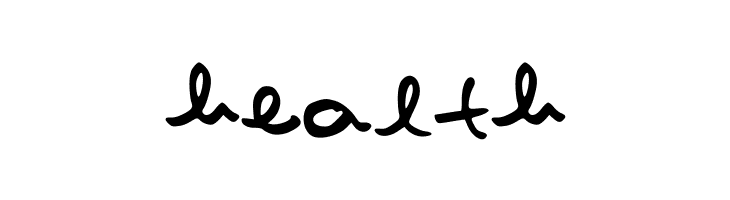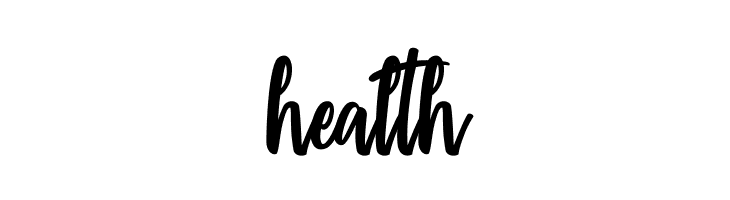
( Daniel Petrino - dpetrino.com/ )
A pixelated, retro-style font inspired by early digital graphics.
A modern, elegant script font with flowing, cursive characters.
( Vladimir Nikolic - www.coroflot.com/vladimirnikolic )
A bold, 3D decorative font with a gradient effect and strong visual impact.
( Vladimir Nikolic - www.coroflot.com/vladimirnikolic )
A bold, three-dimensional font with a shadow effect and geometric style.
A decorative, vintage-style font with characters encased in ornate frames.
( Pathero Studio - www.patherostudio.com )
A bold, lively script font with a handwritten, dynamic style.
( Fonts by Vanessa Bays - bythebutterfly.com )
A playful, handwritten-style font with rounded, consistent strokes.
A modern, elegant font with tall, thin letterforms and high contrast strokes.